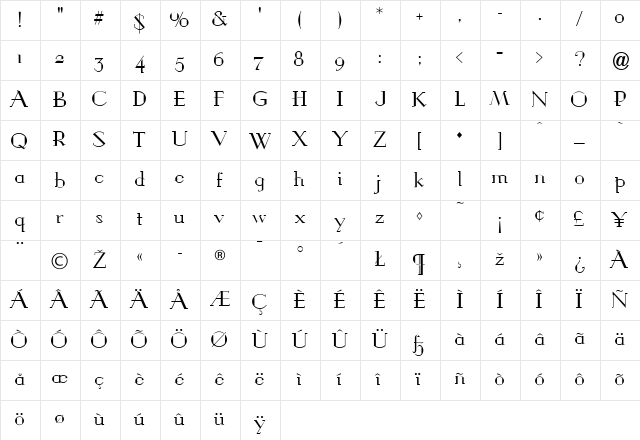
GraybarBook Regular
Regular · Digitized by Dan X. Solo. Software \ by Dover Publications, Inc  ·
Design Context for GraybarBook Typeface
GraybarBook is a composed and adaptable typeface that performs quietly and consistently across a wide range of design contexts.